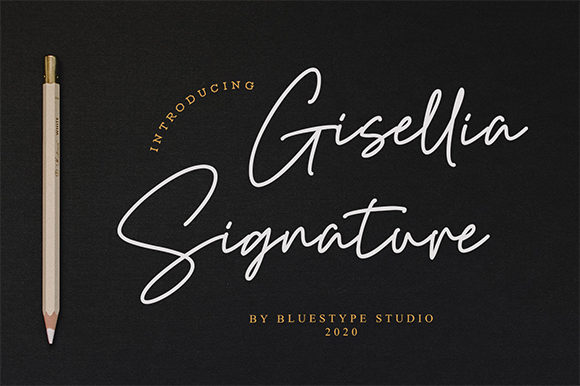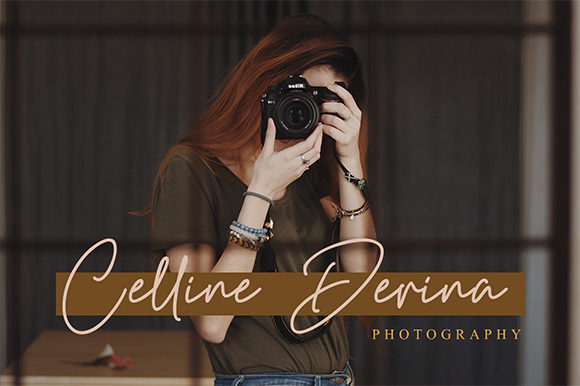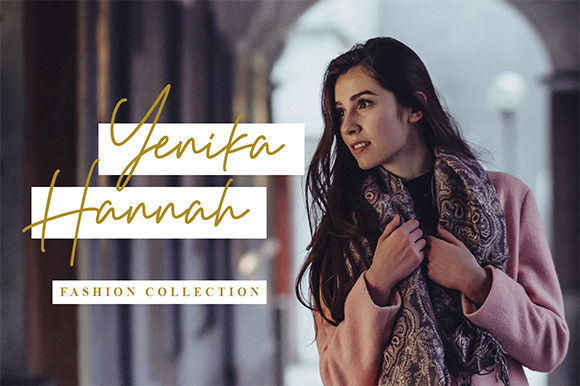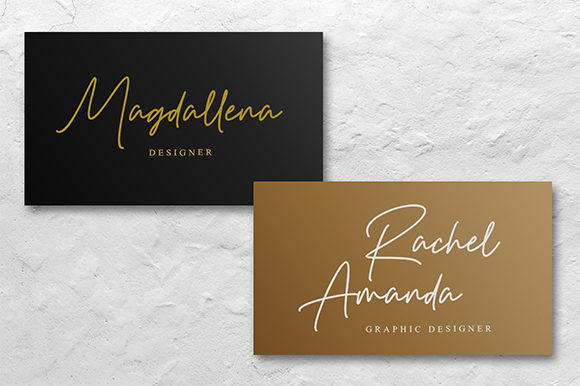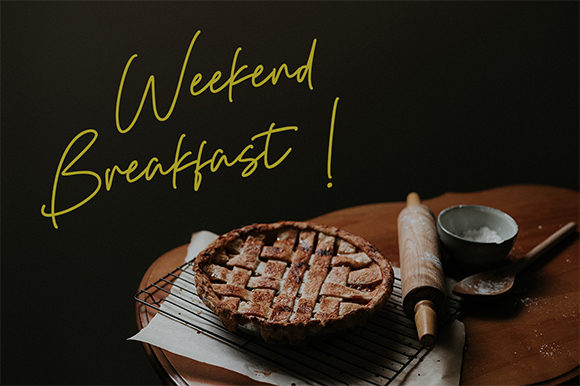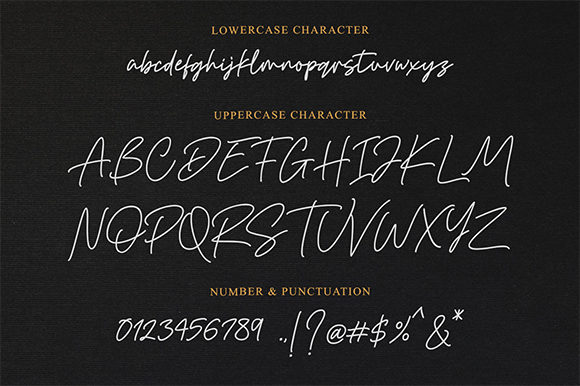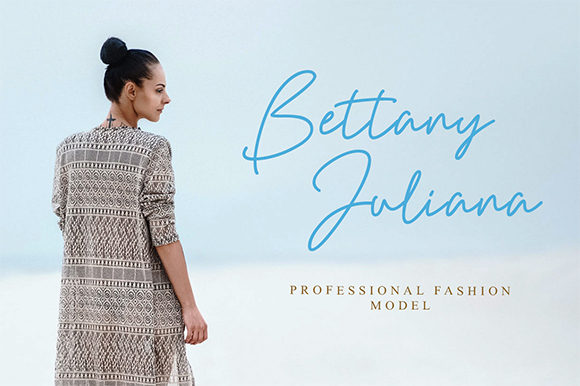
Gisellia Signature Font
About Gisellia Signature Font
Gisellia Signature is a stunning and elegant font with a cool twist. Get inspired by its modern simplicity and use it for wedding invitations, business cards, t-shirt designs, logos, magazines, quotes, fashion, watermarks, and so much more.